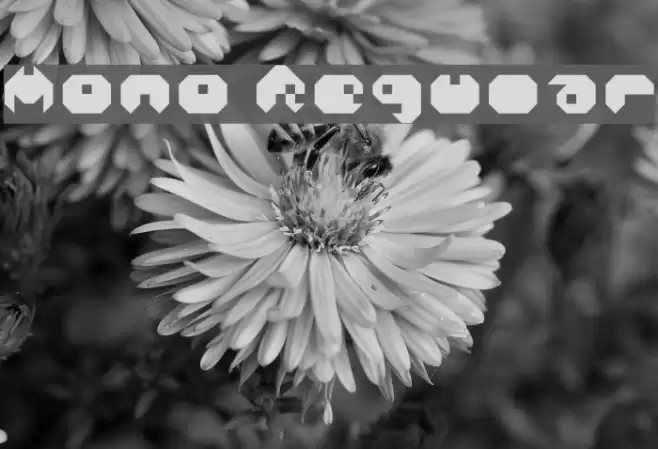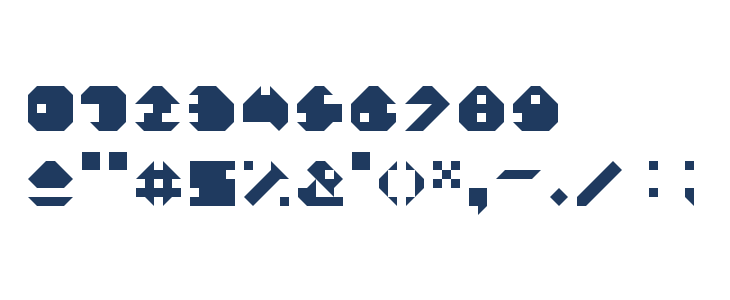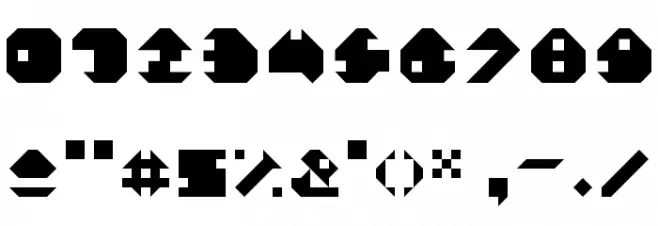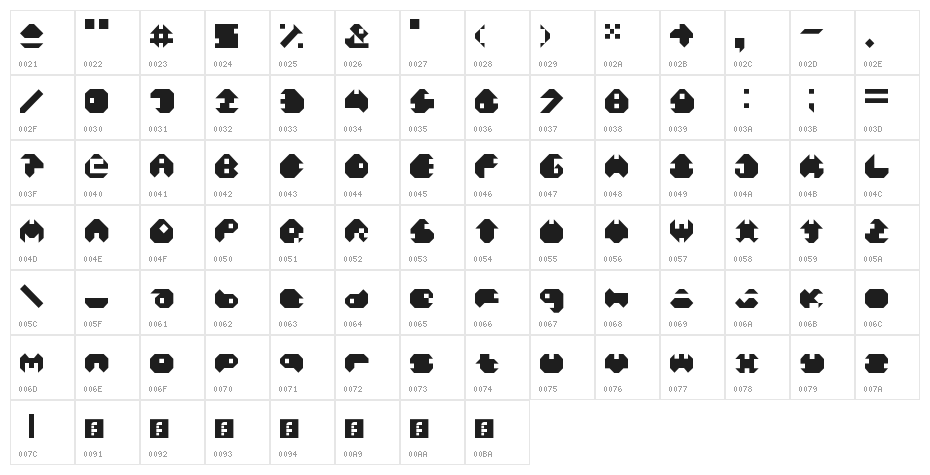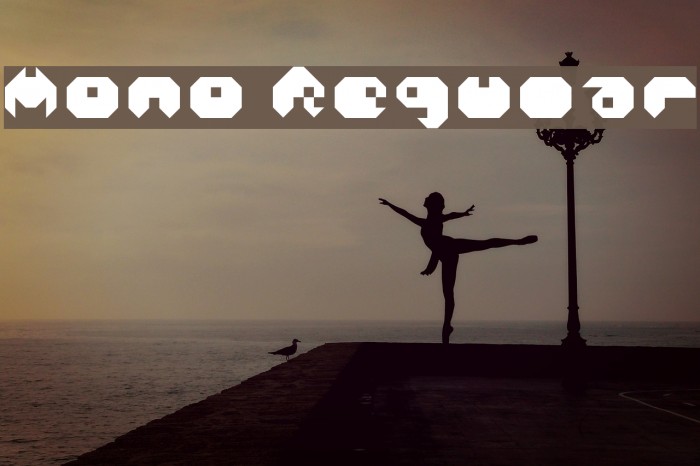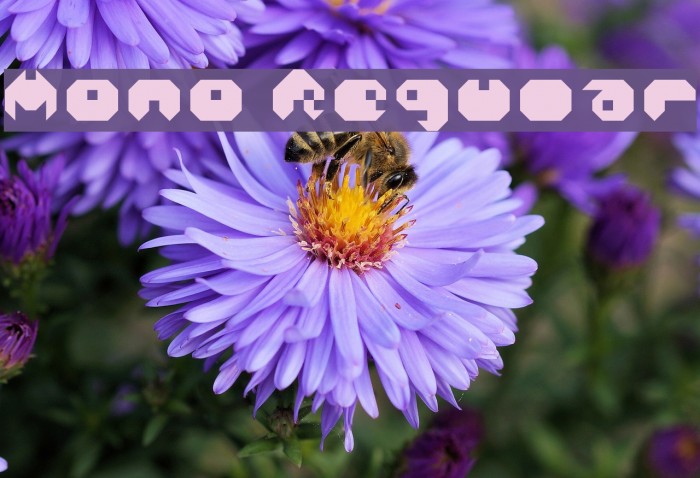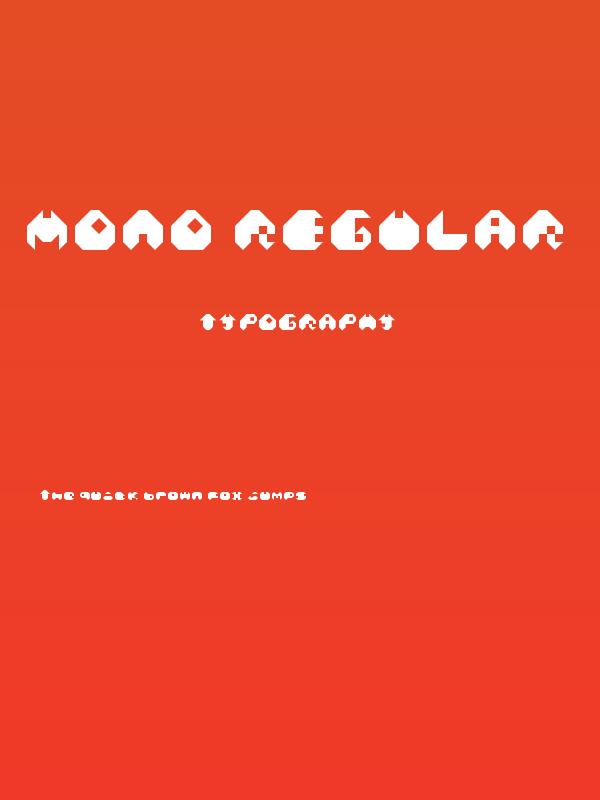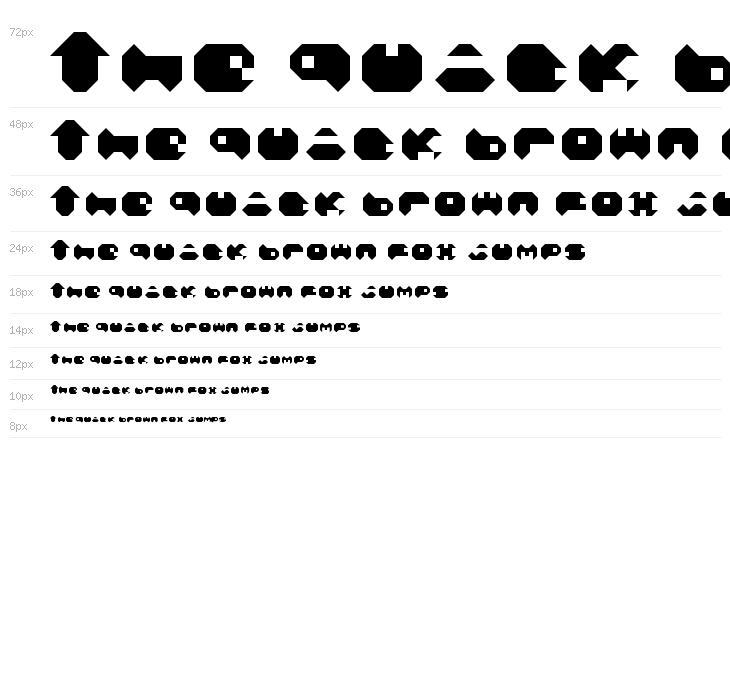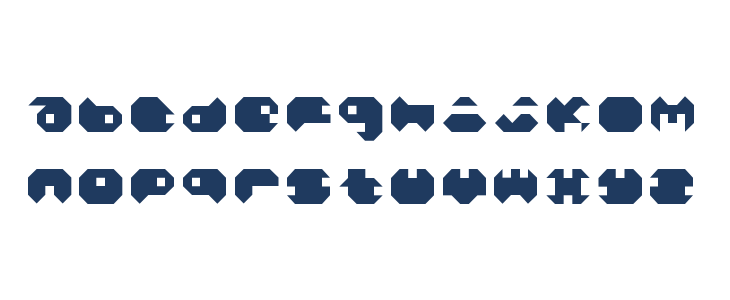
Mono Regular Font
Mono Regular Description
This font features a bold, geometric design with a futuristic and abstract aesthetic. Each character is constructed with solid, block-like shapes, creating a sense of uniformity and strength. The angular forms and sharp edges give it a distinct, modern look, while the consistent thickness throughout the characters adds to its bold appearance. The font maintains a monospaced structure, ensuring equal spacing between each character, which enhances its readability in digital formats. Its unique style makes it suitable for creative and experimental projects, where a strong visual impact is desired.
A bold, geometric font with a futuristic and abstract design from Uncategorized fonts.
- Proposed Projects: Ideal for digital art, video game design, sci-fi themed projects, and modern branding.
- Use Case: Logos, Headlines, Digital Art